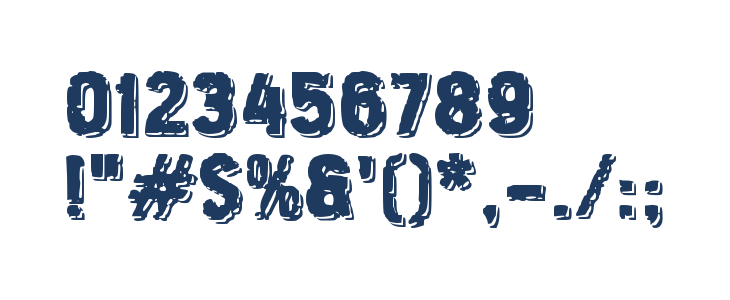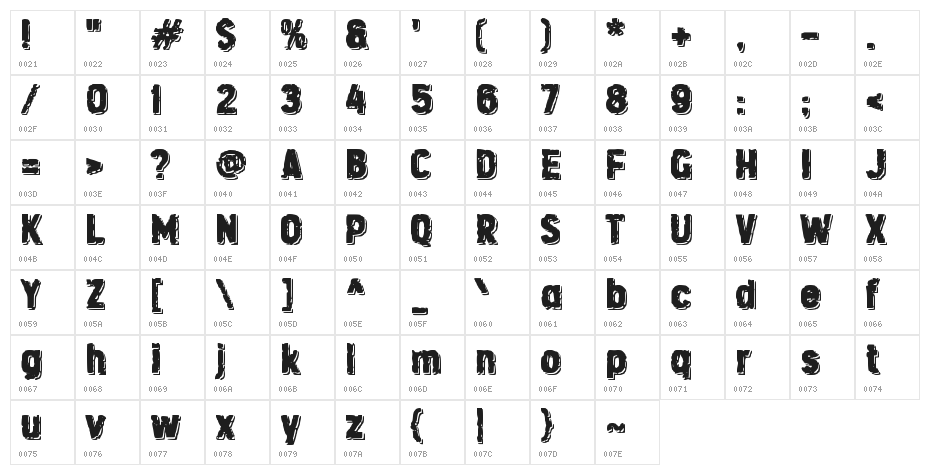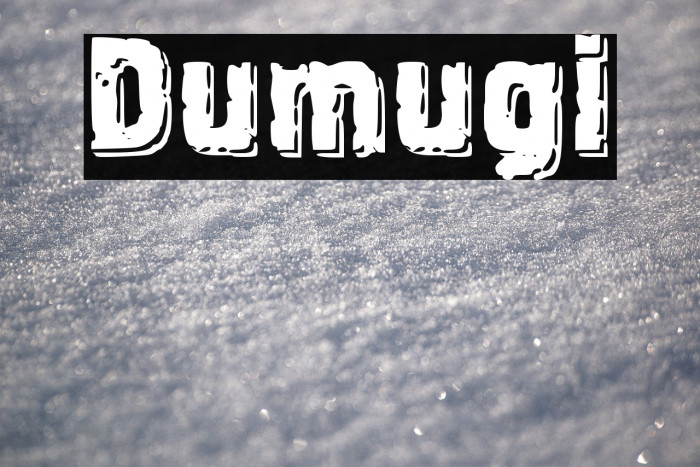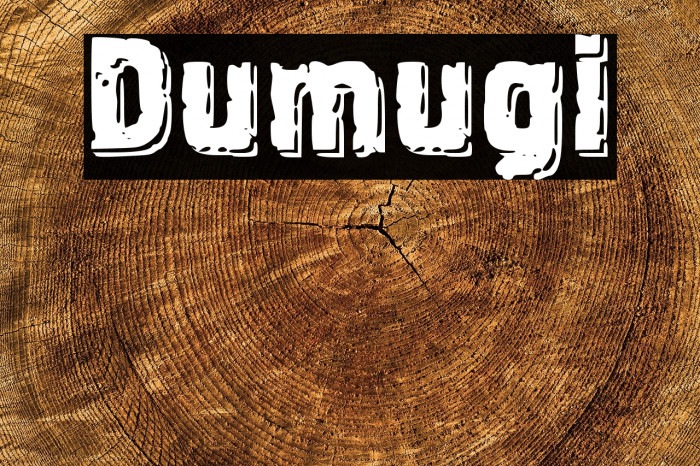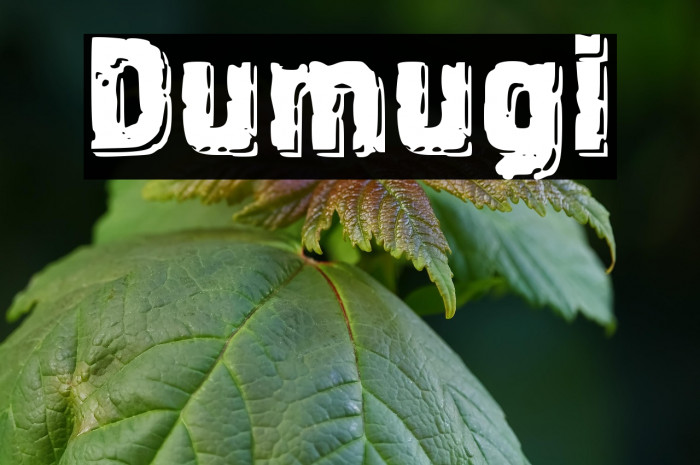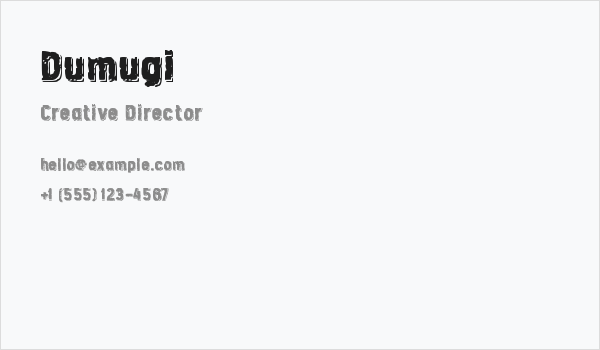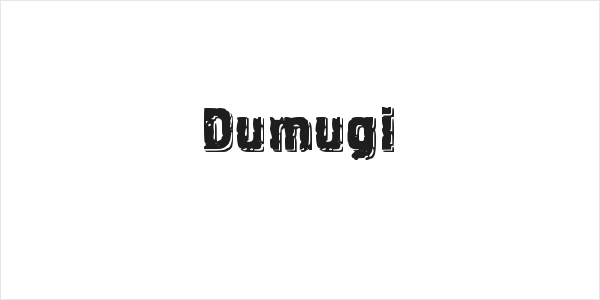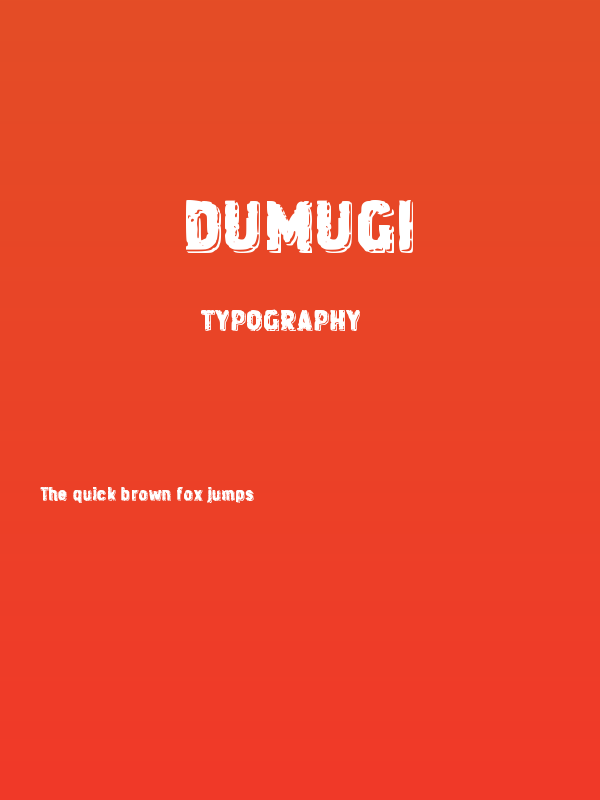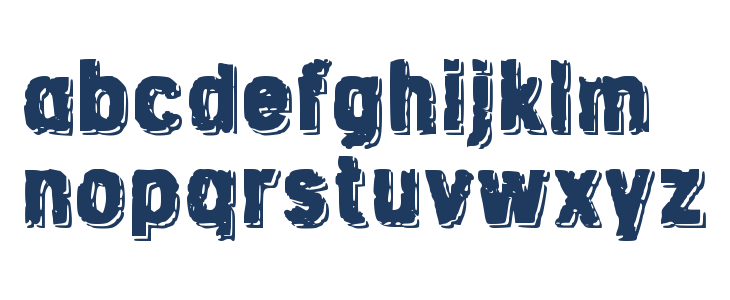
Dumugi Font
Dumugi Description
This font features a bold, distressed style with a rough, textured appearance that gives it a rugged and edgy feel. The characters are thick and substantial, with irregular edges that create a sense of movement and dynamism. The uppercase and lowercase letters maintain a consistent weight, while the numbers and special characters follow the same bold, distressed aesthetic. This font is ideal for projects that require a strong, impactful visual presence, such as posters, album covers, or branding materials that aim to convey a sense of raw energy and authenticity.
| Proposed Projects | Ideal for posters, album covers, branding materials, and any design requiring a strong, impactful presence. |